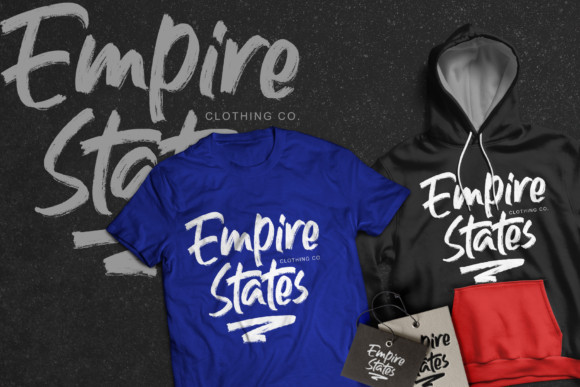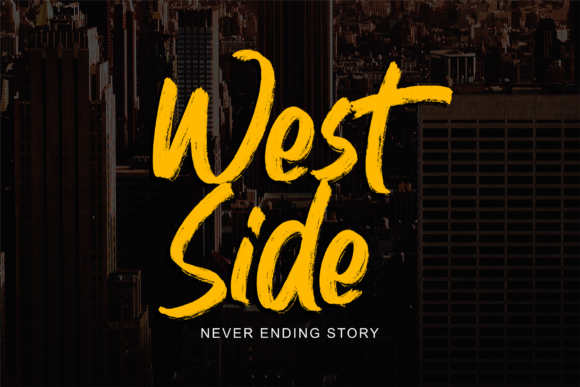
Shooter Champ Font
Shooter Champ is a bold and dynamic dry brush script with thick letters. Use it to add a powerful and bold feel to your next DIY project.